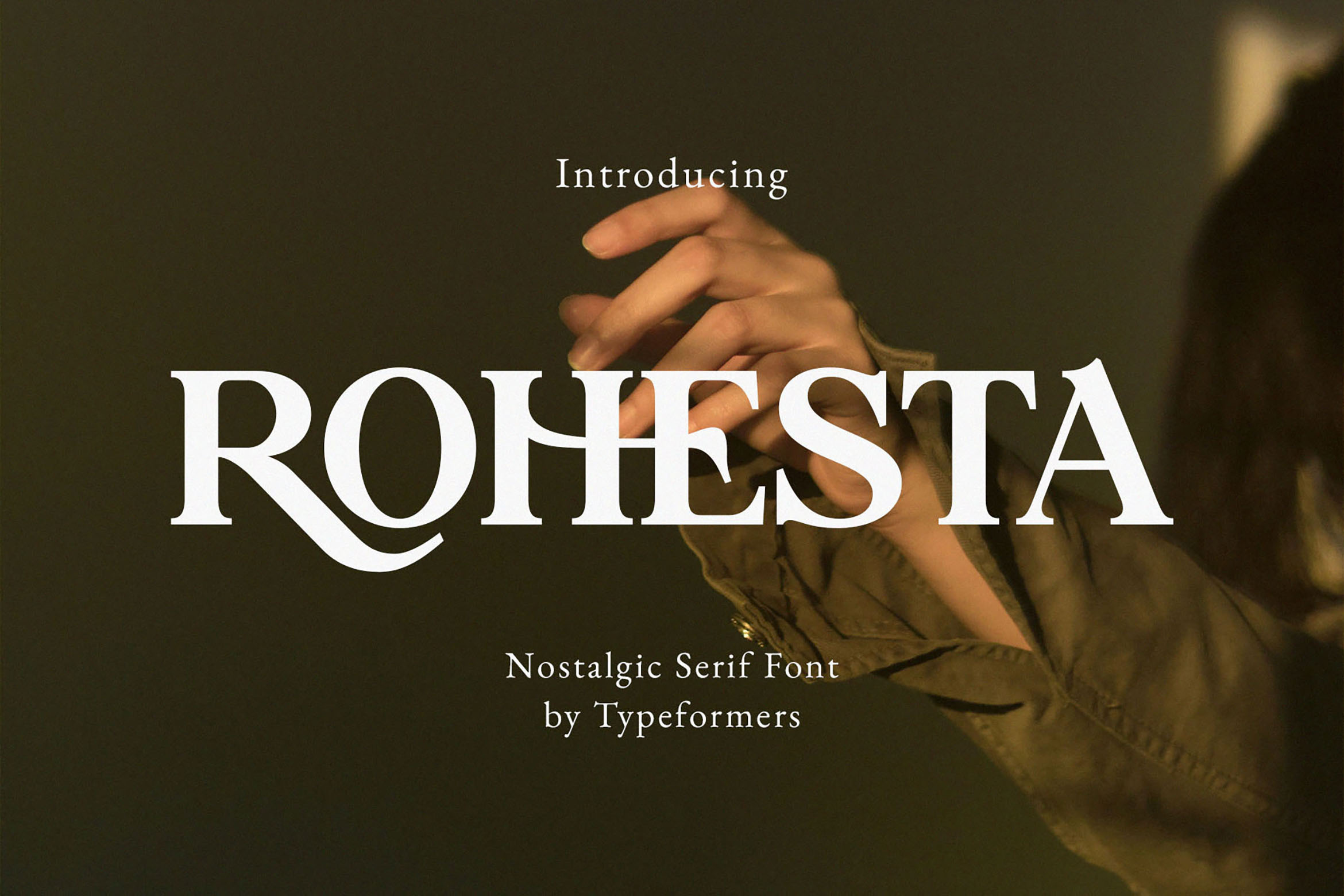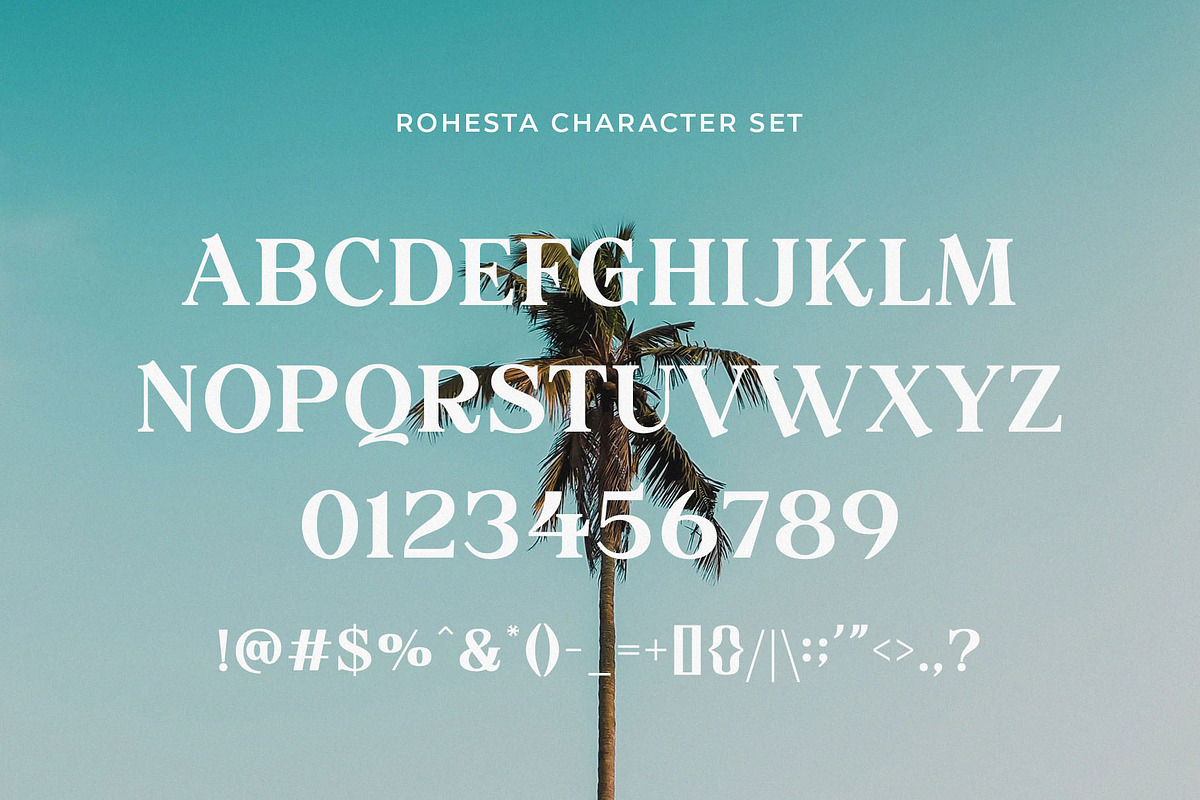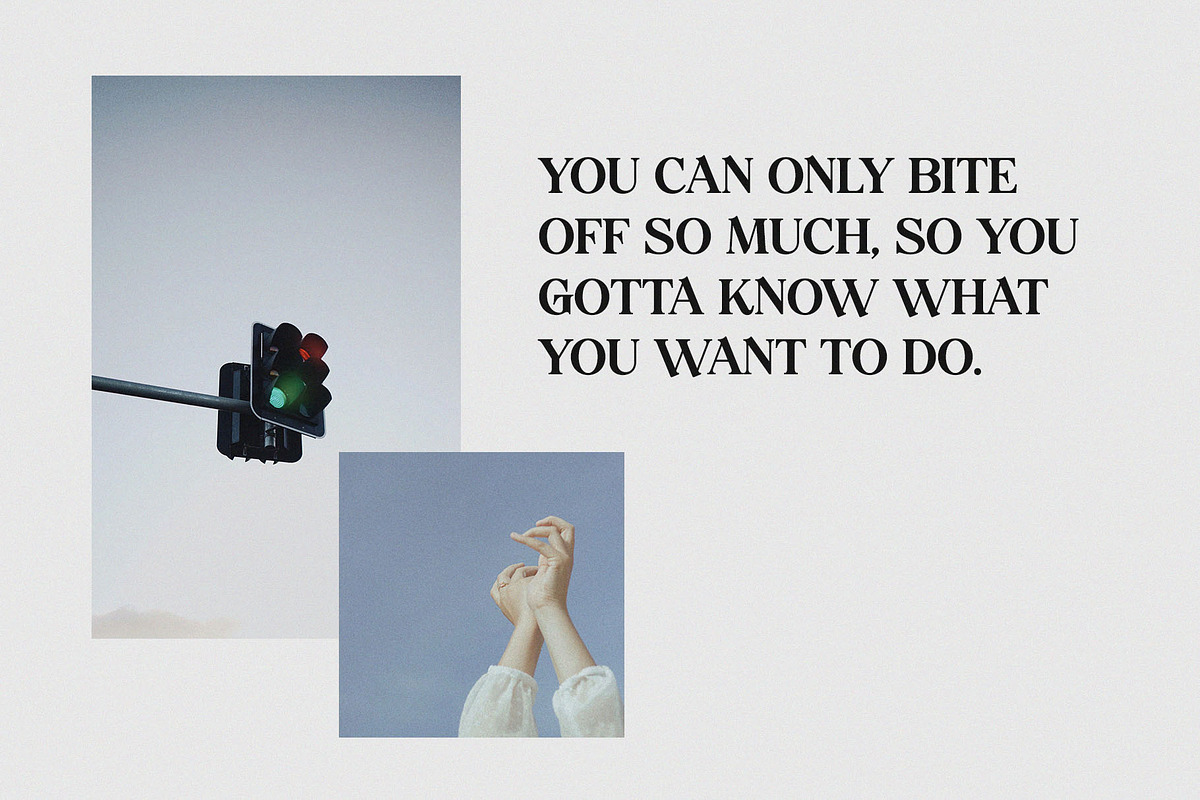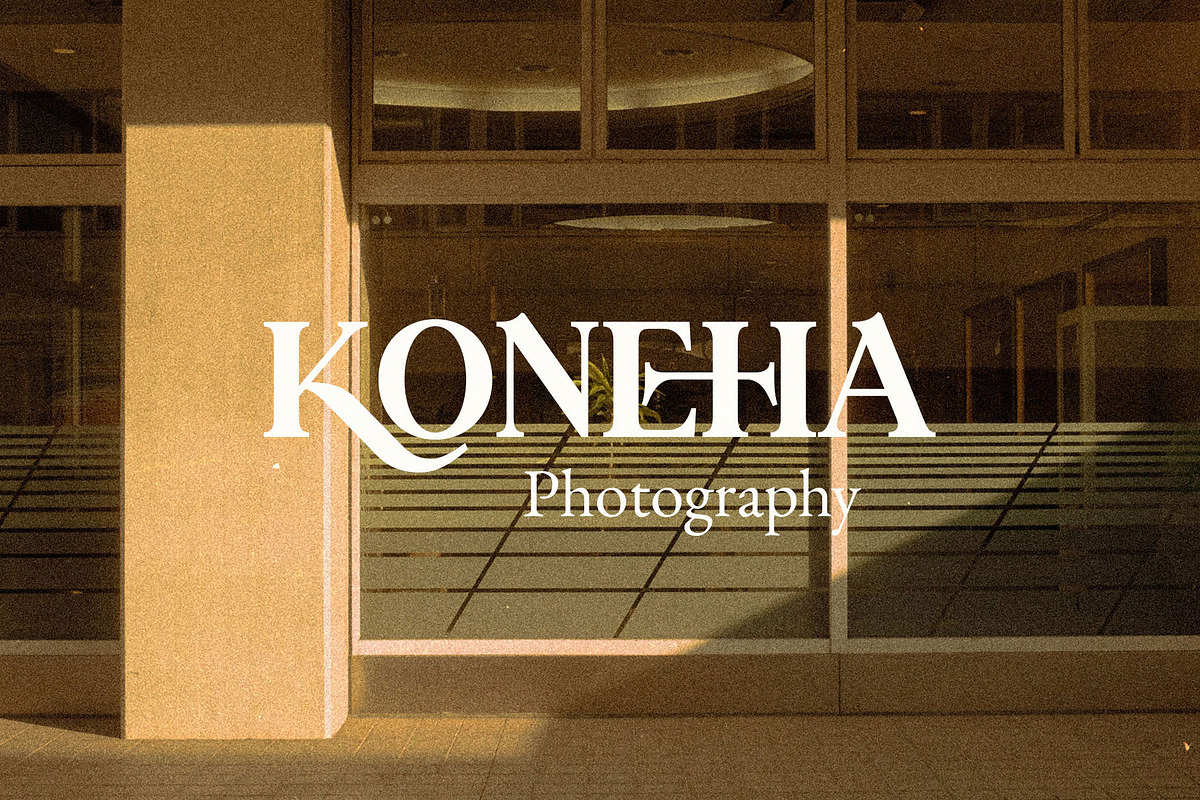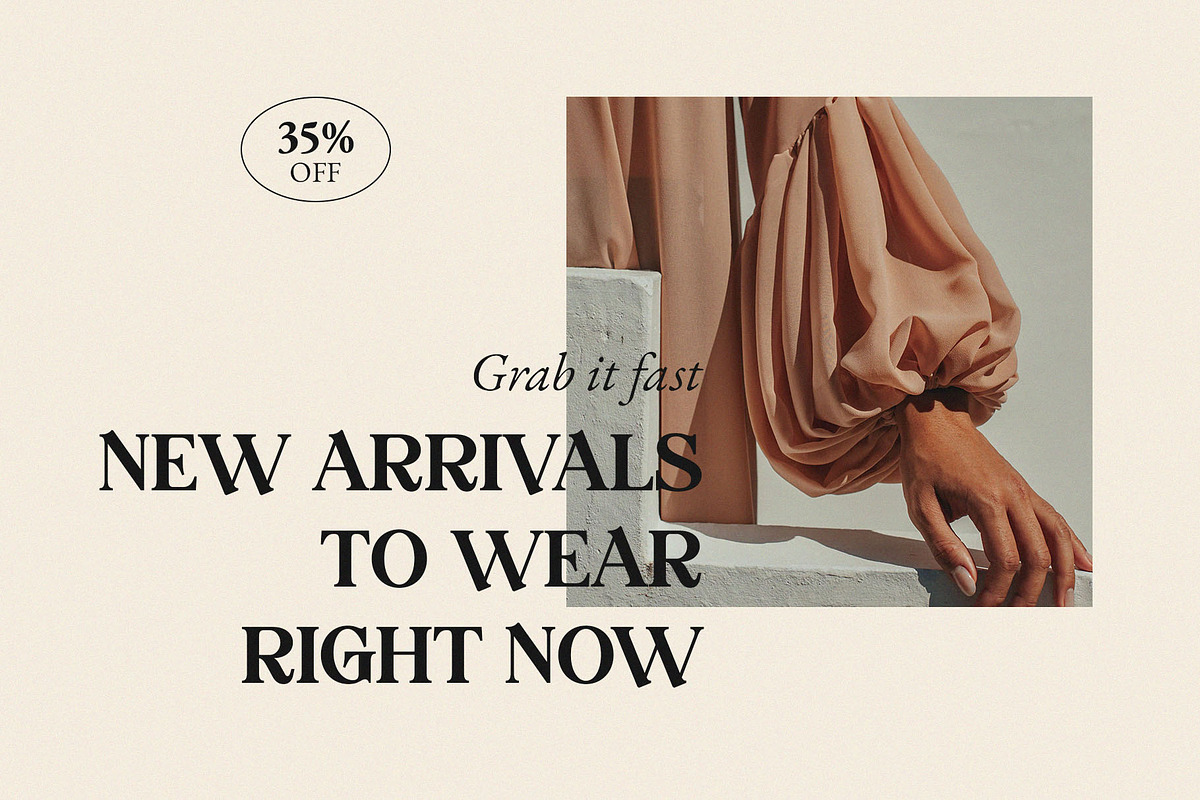
Rohesta - Nostalgic Serif Font
Rohesta is a nostalgic and simple font, best used as a display for headings, logos, branding, magazines, product packaging and invitations.